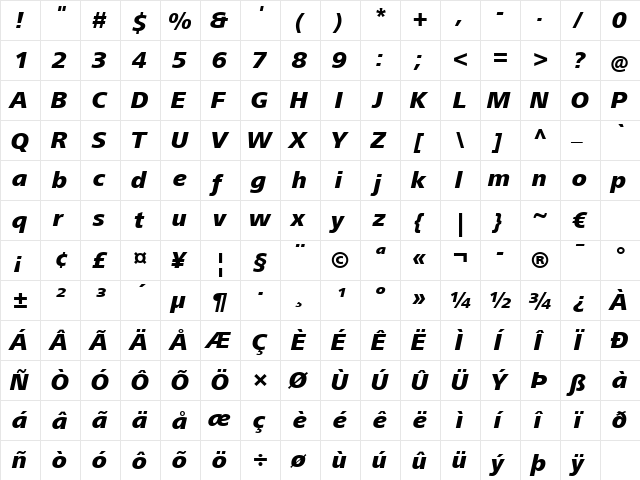
FrutigerNext LT Medium Bold Italic Font Preview
| Foundry | Linotype Library GmbH |
| Designer | Adrian Frutiger |
Design Context for FrutigerNext LT Medium Typeface
FrutigerNext LT Medium offers clean, dependable letterforms without strong stylistic allegiance, making it a practical choice for designers who need flexibility. Its italic angle brings a sense of urgency and motion to the letterforms. The heavy weight commands attention and anchors typographic hierarchies.
Pro Tip: Try FrutigerNext LT Medium for annotation and caption copy alongside an upright companion — the contrast in angle creates a dynamic but ordered typographic system.